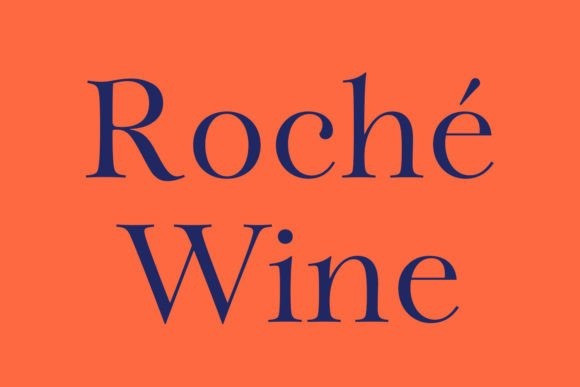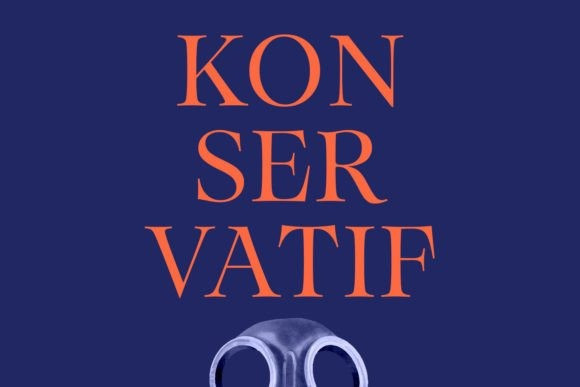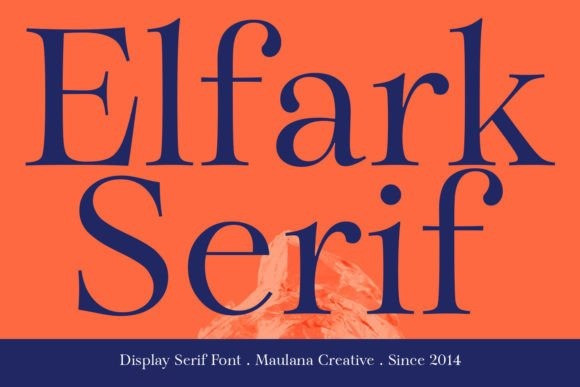
Elfark Serif Font
Elfark Serif Font is a classy serif font that exudes elegance and refinement. Its clean lines and balanced proportions make it versatile for various design projects, from branding to editorial layouts. With a touch of sophistication, Elfark captures attention and delivers a sense of timeless beauty. Embrace its charm and elevate your creations with this sophisticated typeface.